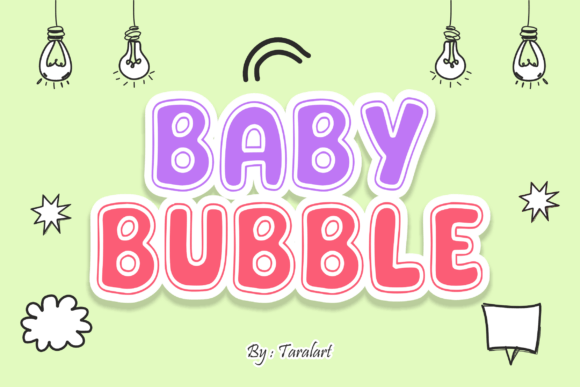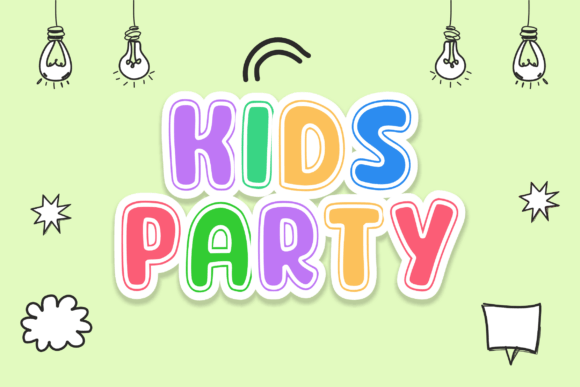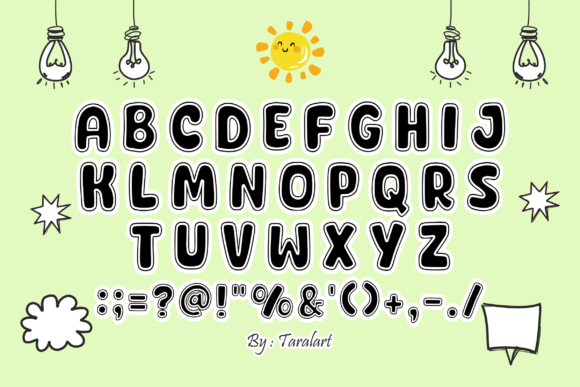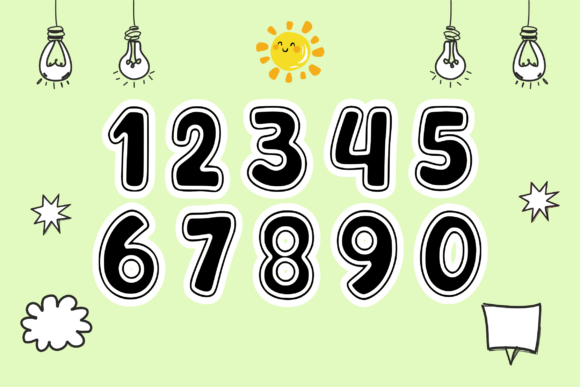
Introduction to Fancy Display Font
As a designer, you’ve likely found yourself stuck in a creative rut, yearning for that perfect font to elevate your project. Maybe you’re brainstorming ideas for a custom t-shirt design or working on a sublimation project for a client. Whatever the case, I’m here to introduce you to a font that’s sure to spark your imagination – the enchanting Fancy Display Font.
Imagine a font that embodies a whimsical, child-like essence, effortlessly identifiable and uniquely charming. This is exactly what you’ll get with the Fancy Display Font, a high-quality design resource that’s perfect for adding an extra touch of magic to your animations, comic titles, and sublimation designs. Whether you’re working on a free download project or a paid commission, this font is sure to bring an extra layer of sophistication and creativity to your work.
Key Features of Fancy Display Font
- High-quality design with a transparent background, making it perfect for creative projects.
- Designed with a focus on elegance and sophistication, making it ideal for titles, headings, and other display typography.
- Supports a wide range of languages and characters, including Latin, Cyrillic, and Greek alphabets.
- Includes a comprehensive character set, including punctuation marks, numbers, and symbols.
Honest Review: Fancy Display Font
I recently came across the Fancy Display Font and was excited to give it a try in my latest design project. The font itself is high quality and features a transparent background, making it perfect for overlaying on images or other design elements.
One of the things that I really liked about this font is its creative and unique style. It’s perfect for adding a touch of elegance to any design project, whether it’s a brochure, business card, or even a website.
Here are some of the things that I liked about the Fancy Display Font:
- High quality and detailed design
- Transparent background for easy overlaying
- Perfect for creative projects where a touch of elegance is needed
However, I did find a few limitations with this font:
- Only comes in a limited range of weights and styles
- Not ideal for projects that require a lot of text formatting
Overall, I would say that the Fancy Display Font is a great addition to any designer’s toolkit. While it may not be perfect for every project, it’s a high-quality design resource that’s sure to impress.
Tips for Getting the Most Out of Fancy Display Font
Experiment with different font sizes, colors, and styles to create a unique design. Use the font in conjunction with other design elements to create a visually appealing project.
Fancy Display Font is ideal for creative projects such as social media graphics, blog posts, and presentations. Its high-quality design and transparent background feature make it a popular choice among designers.